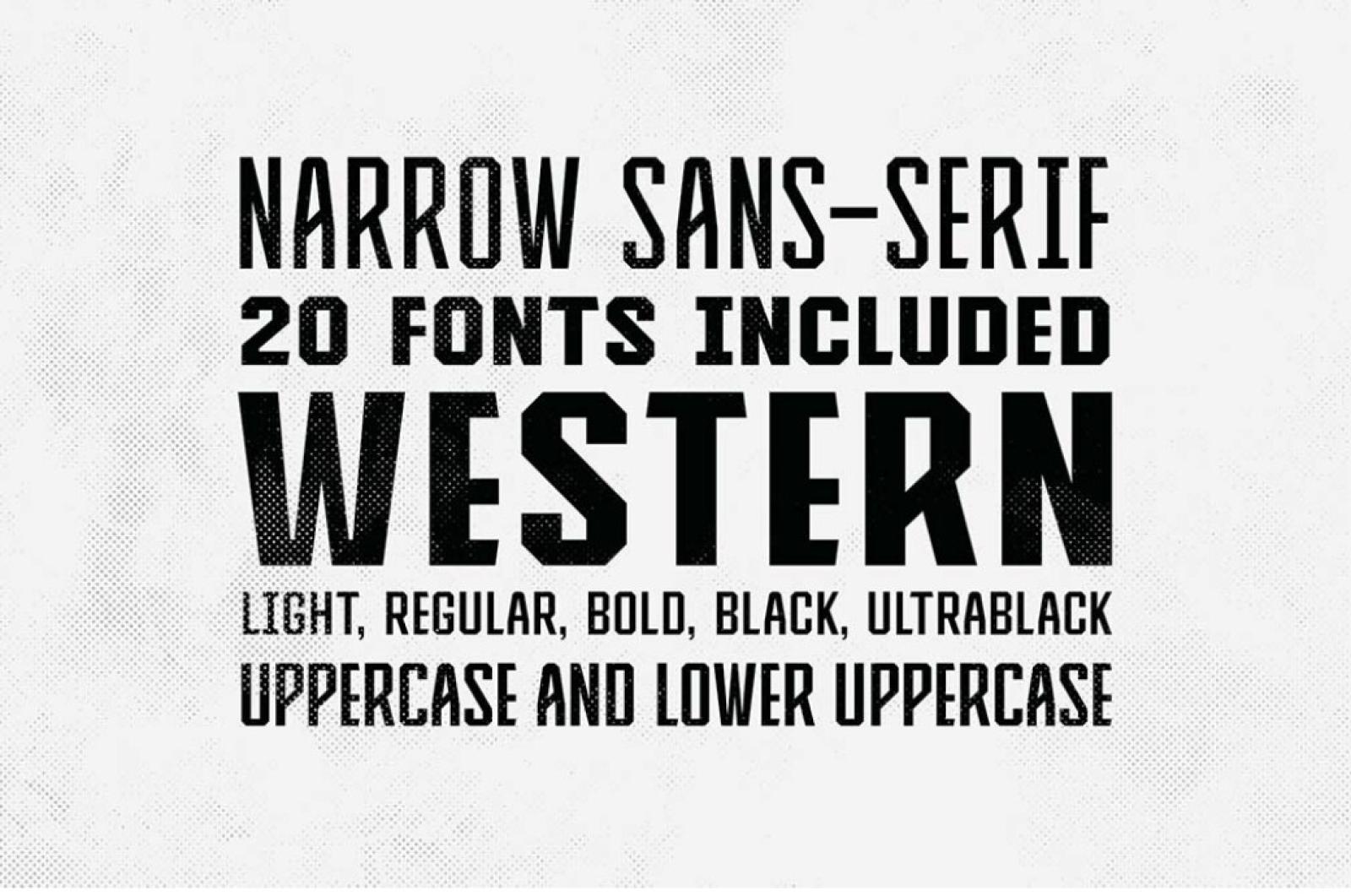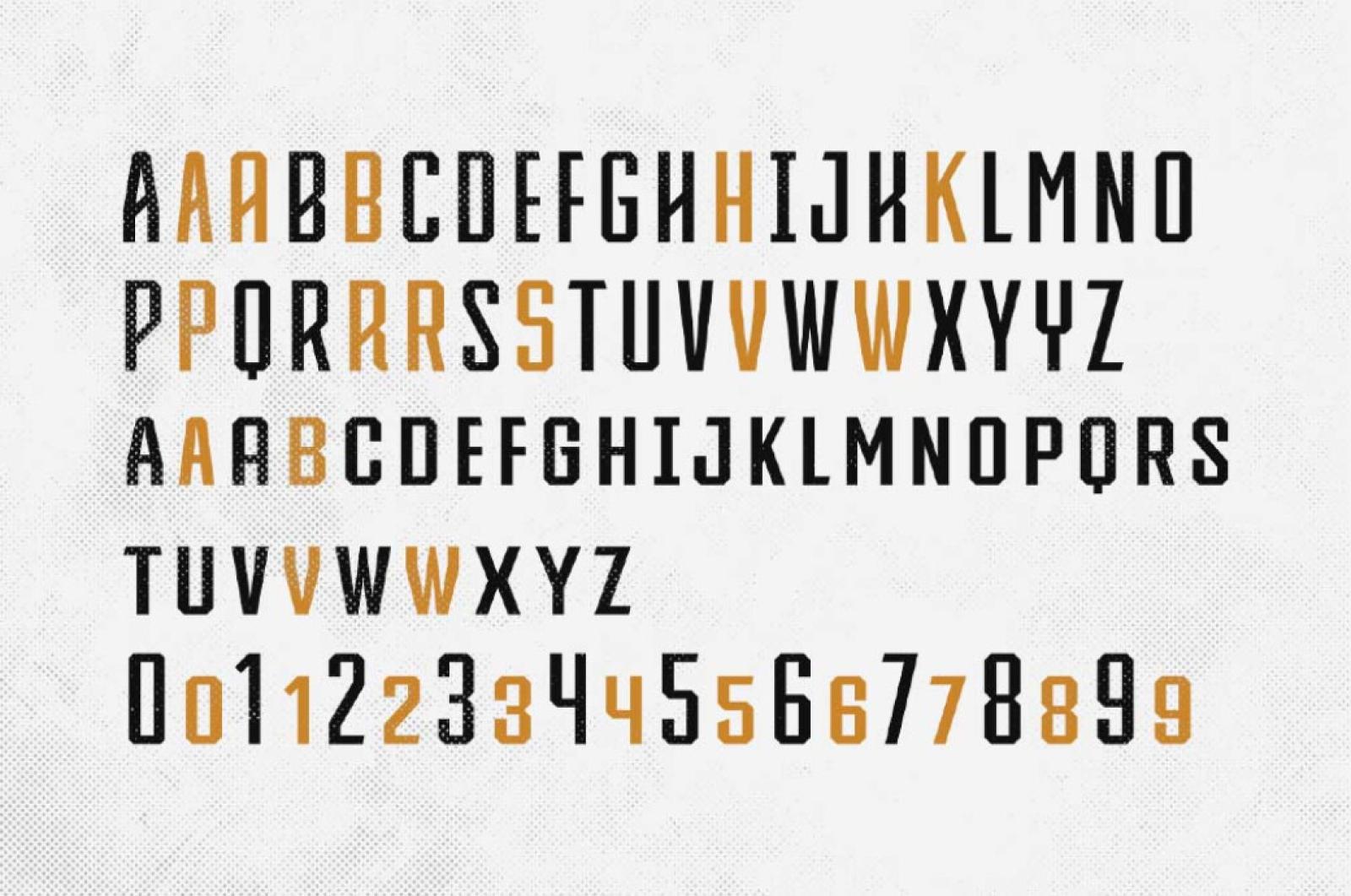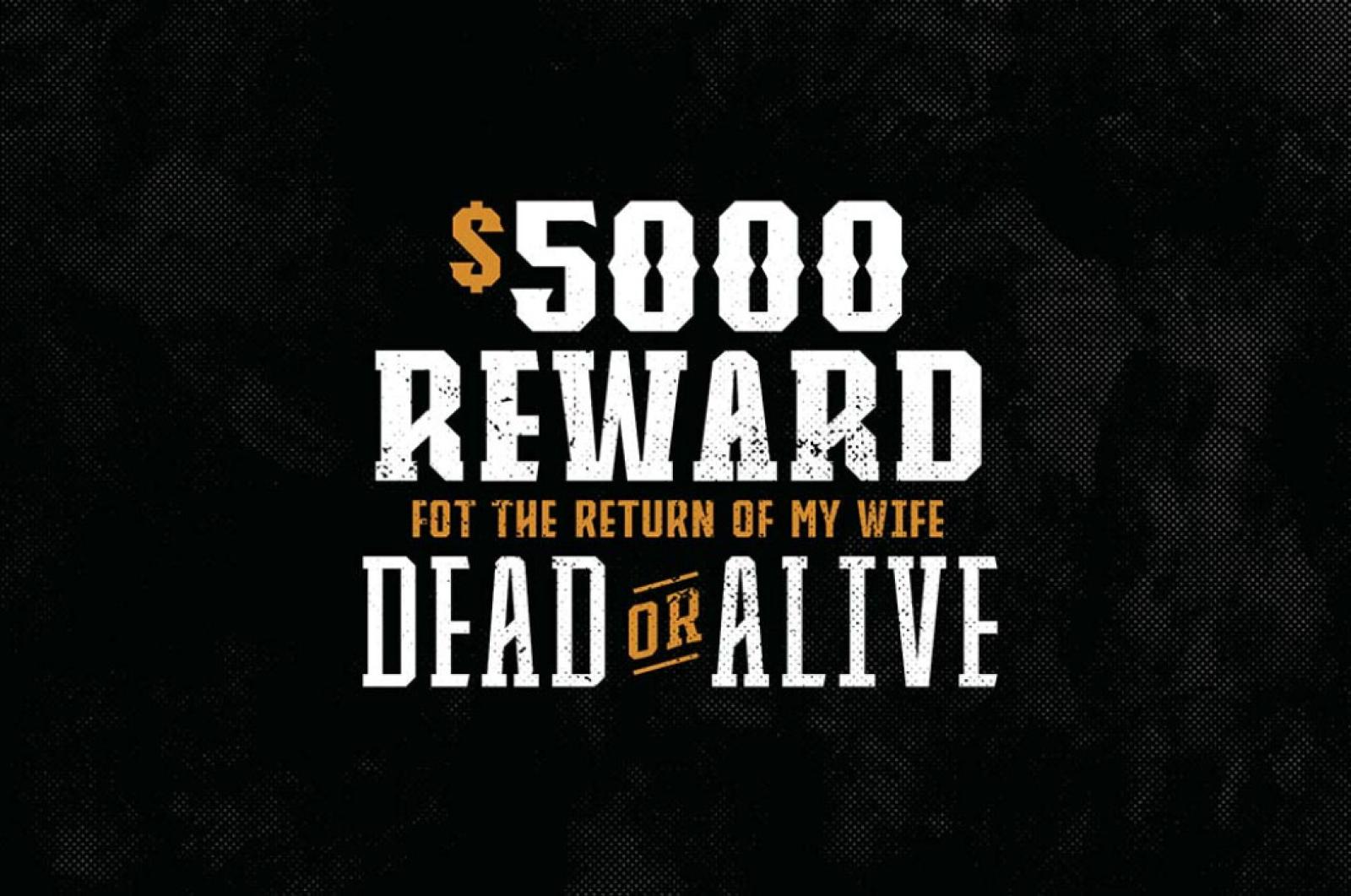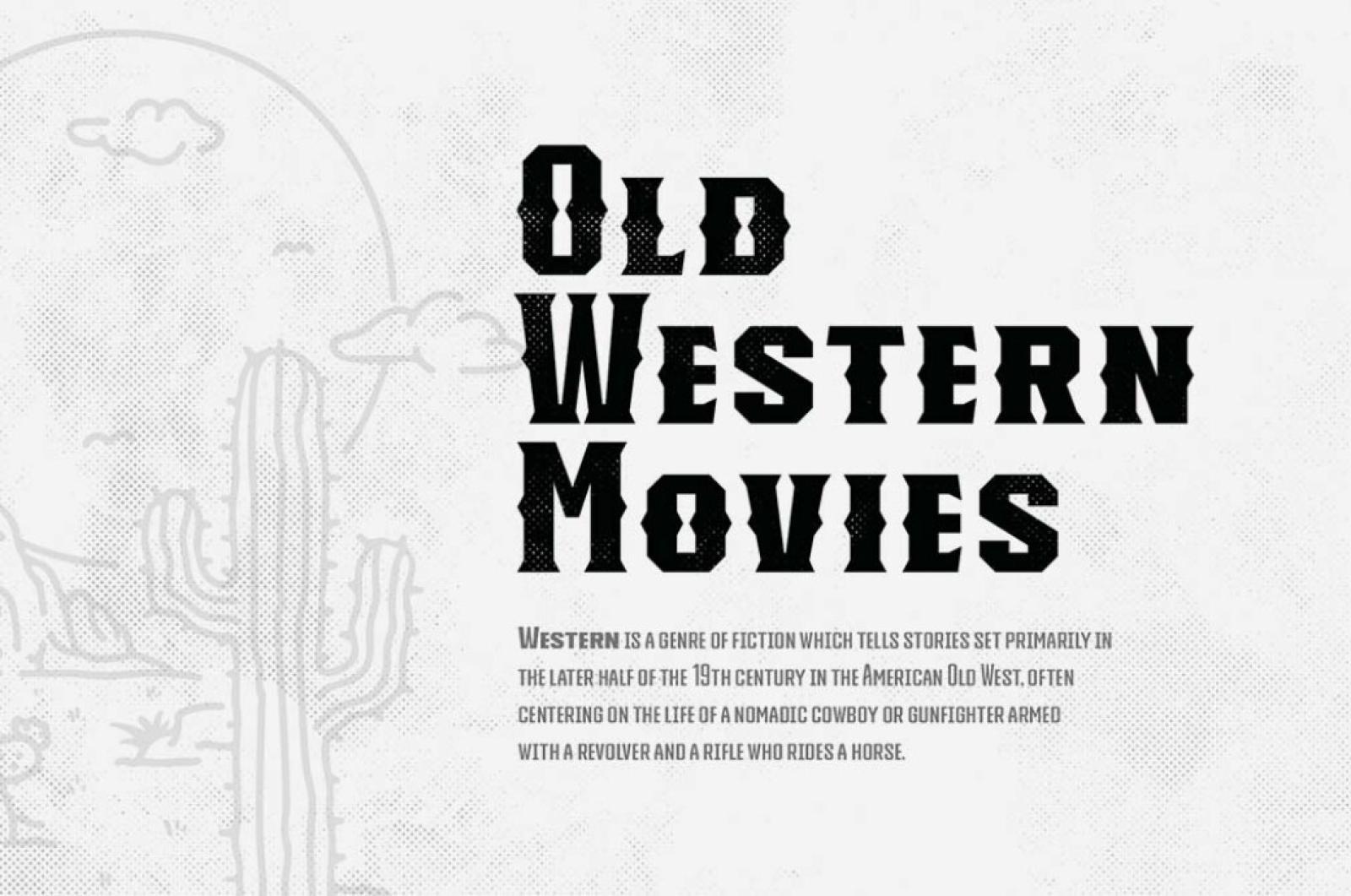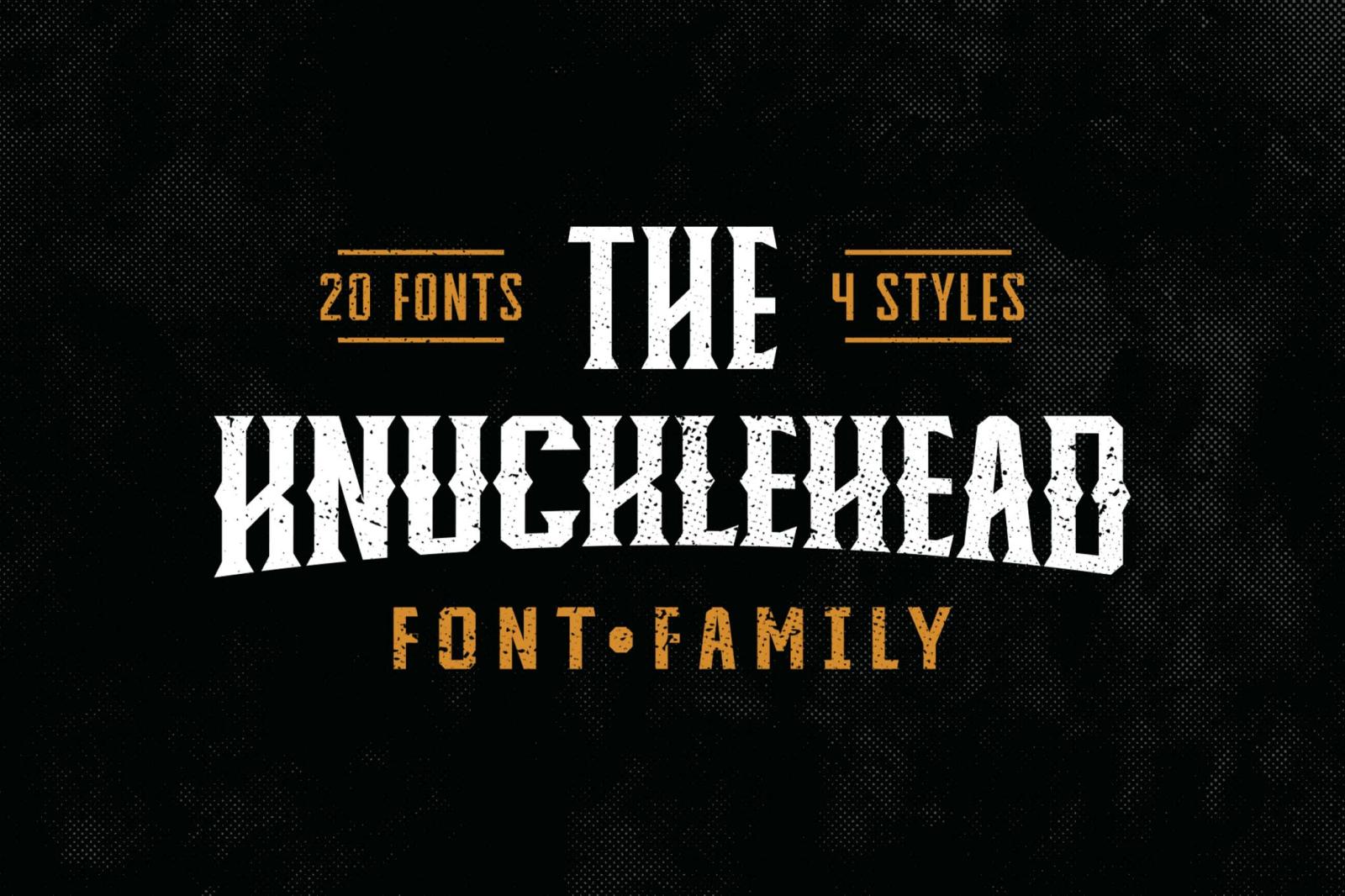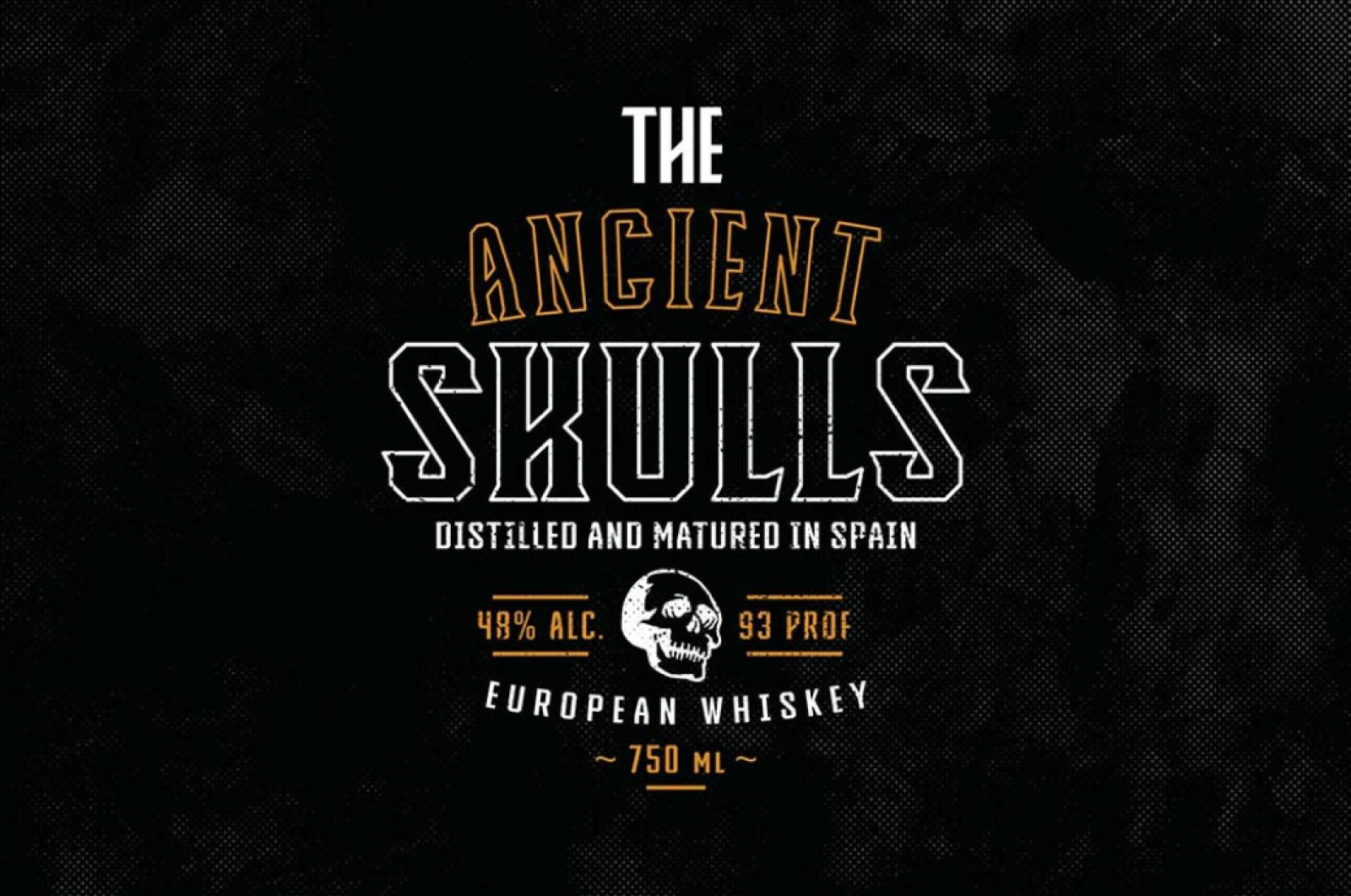
Knucklehead Font Family
Knucklehead sources its inspiration from the Wild West culture and brings famous to a new level — in order to help you stand out with your designs!
Traditional, yet modern, the Knucklehead font family has that vintage touch that really can draw attention. It is suited for out-of-the-box communication and can suit various projects, from prints and posters to packaging and logos. At your disposal, you will have 4 fonts: Sans, Serif, Deco, and Slab, each coming in five weights, from light to ultra black. Technically, Knucklehead includes everything needed for an unrestrained creative process: uppercase and lowercase characters, multilingual support, symbols, and numbers.